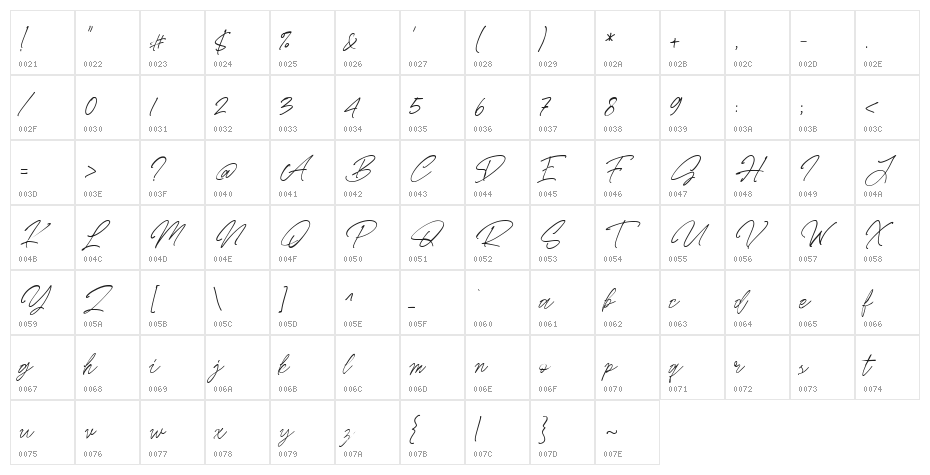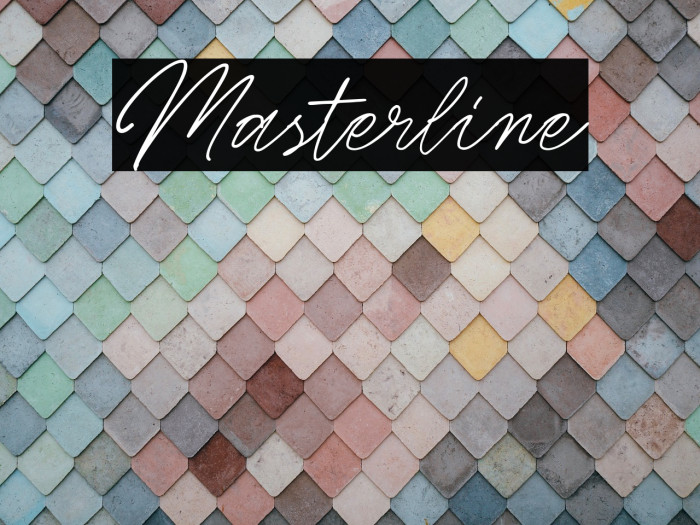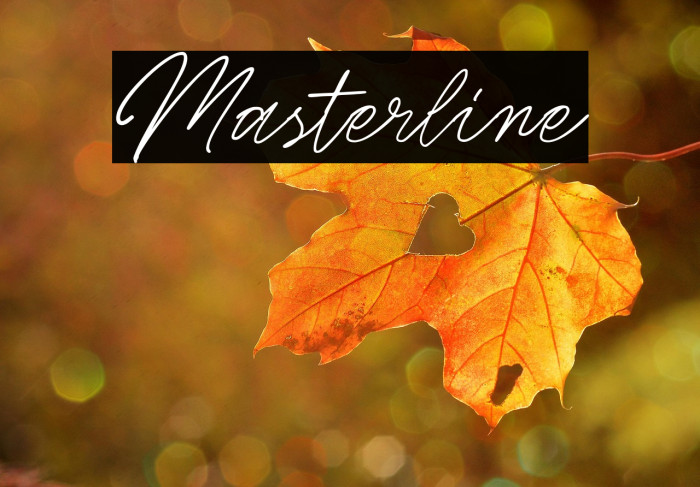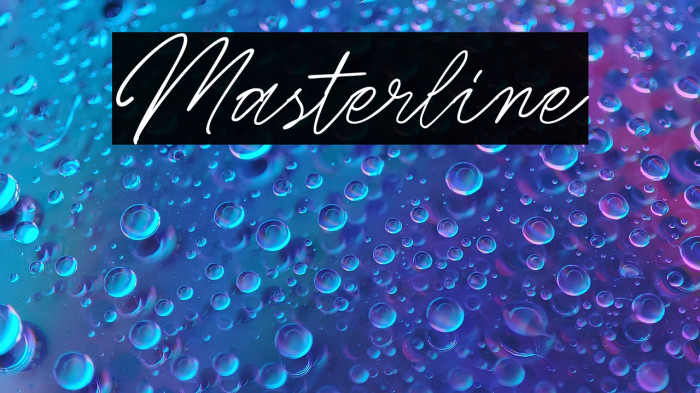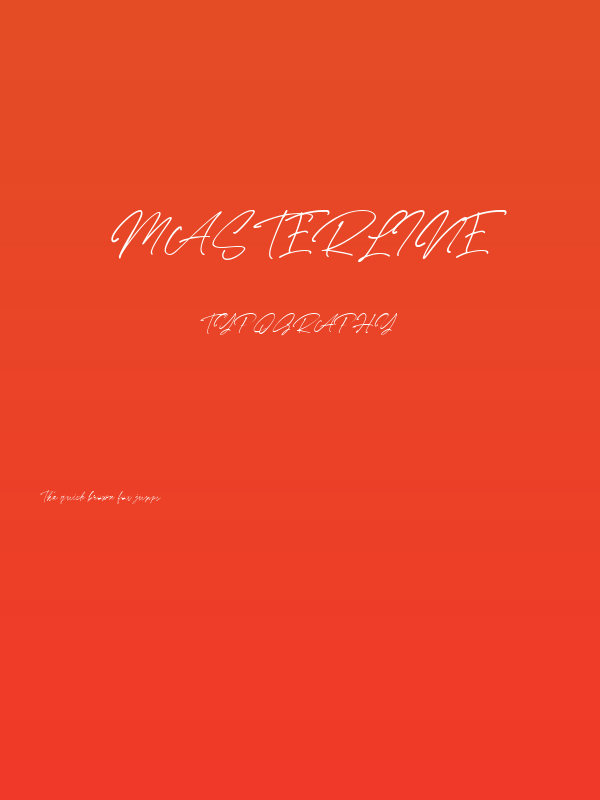
Masterline Font
Masterline Description
This elegant script font features fluid, cursive strokes that mimic the natural flow of handwriting. The uppercase letters are characterized by sweeping, graceful lines, while the lowercase letters maintain a consistent rhythm and balance. The numerals are stylishly integrated, maintaining the overall aesthetic of the font. Special characters are thoughtfully designed to complement the script style, adding versatility for various uses. The font's delicate yet confident appearance makes it suitable for projects that require a personal touch.
| Overall Style | Elegant, Handwritten |
| Use Case | Logos, Invitations, Personal Branding |
| Proposed Projects | Ideal for wedding invitations, greeting cards, personal branding, and elegant packaging designs. |